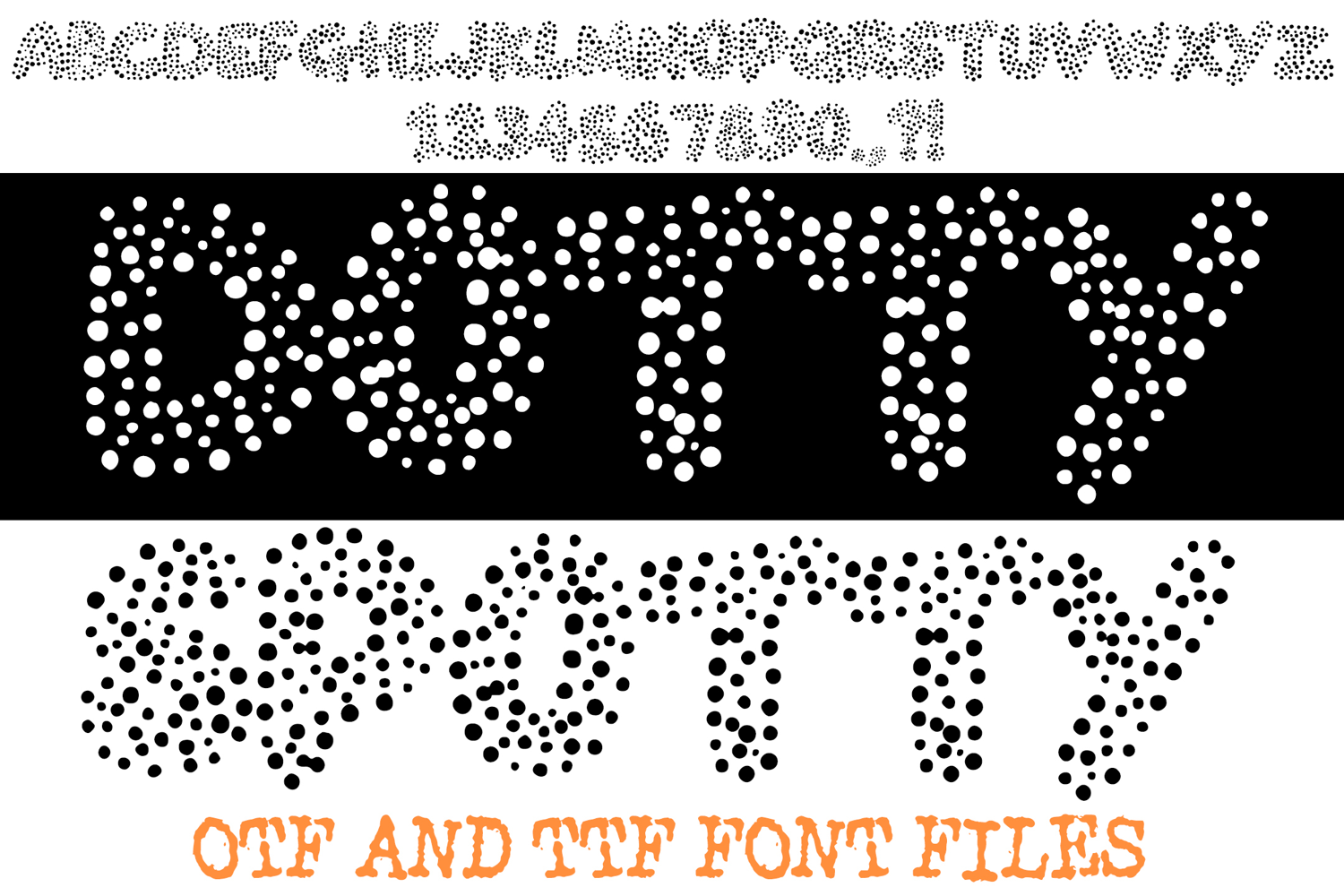
Dotty Spotty Alphabet Lettering ABC Dot Spots Text Font OTF by Squeeb Creative
Dotty Spotty Alphabet Lettering ABC Dot Spots Text Font OTF
Dotty Spotty Alphabet Lettering ABC Dot Spots Text Font OTF A unique spot style font where you can c…